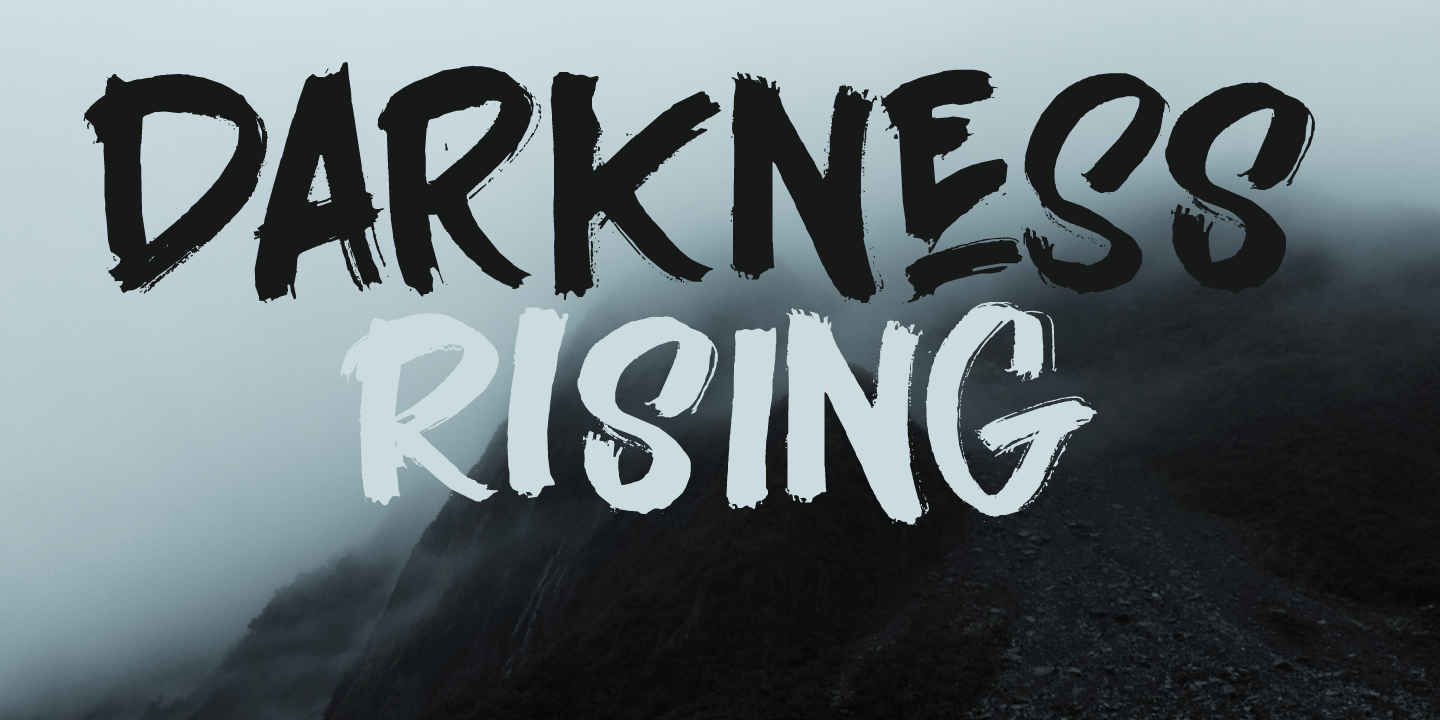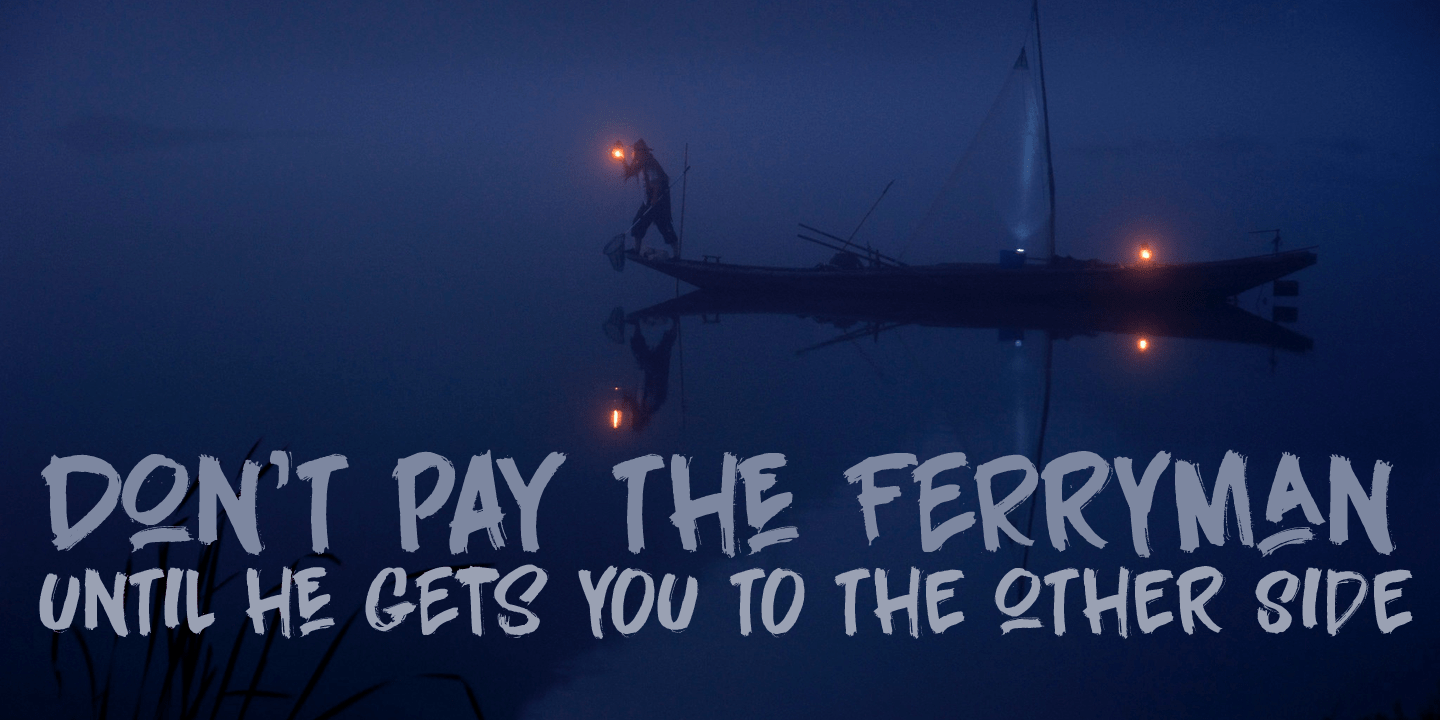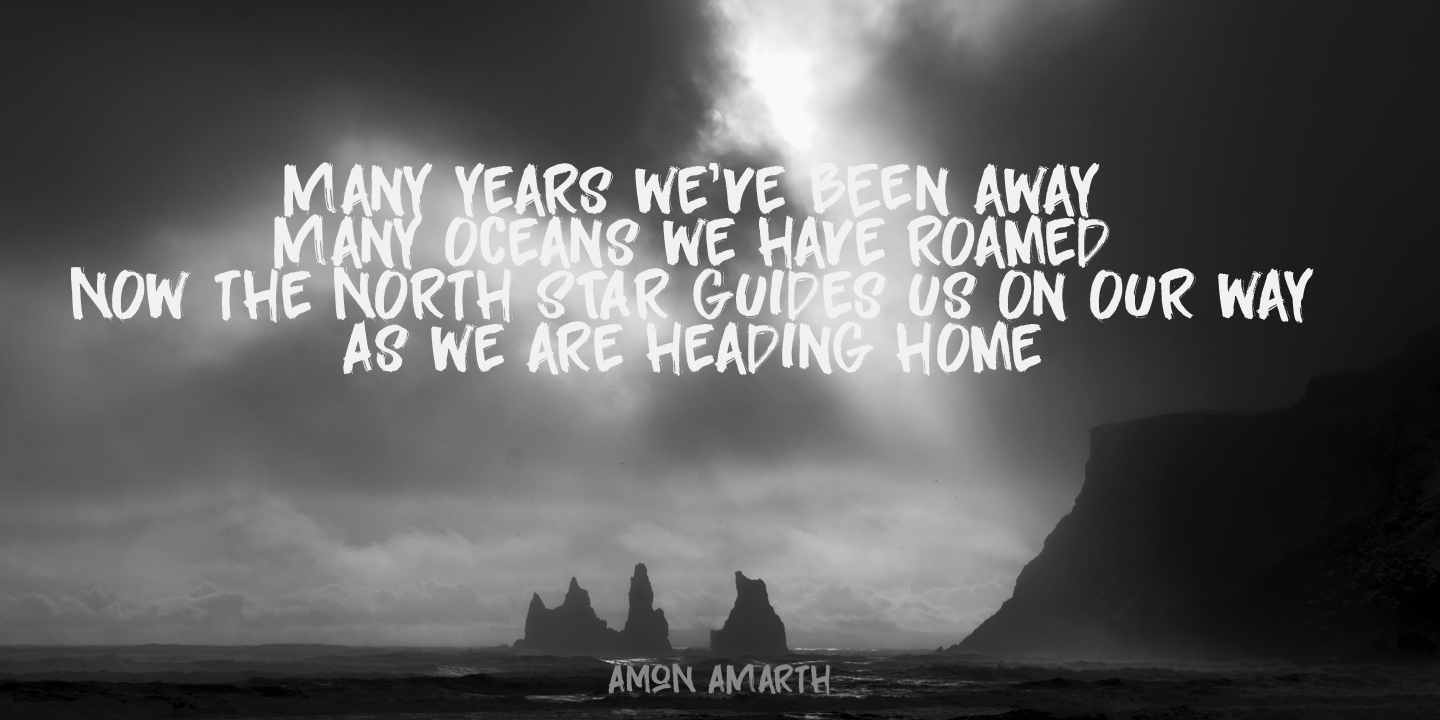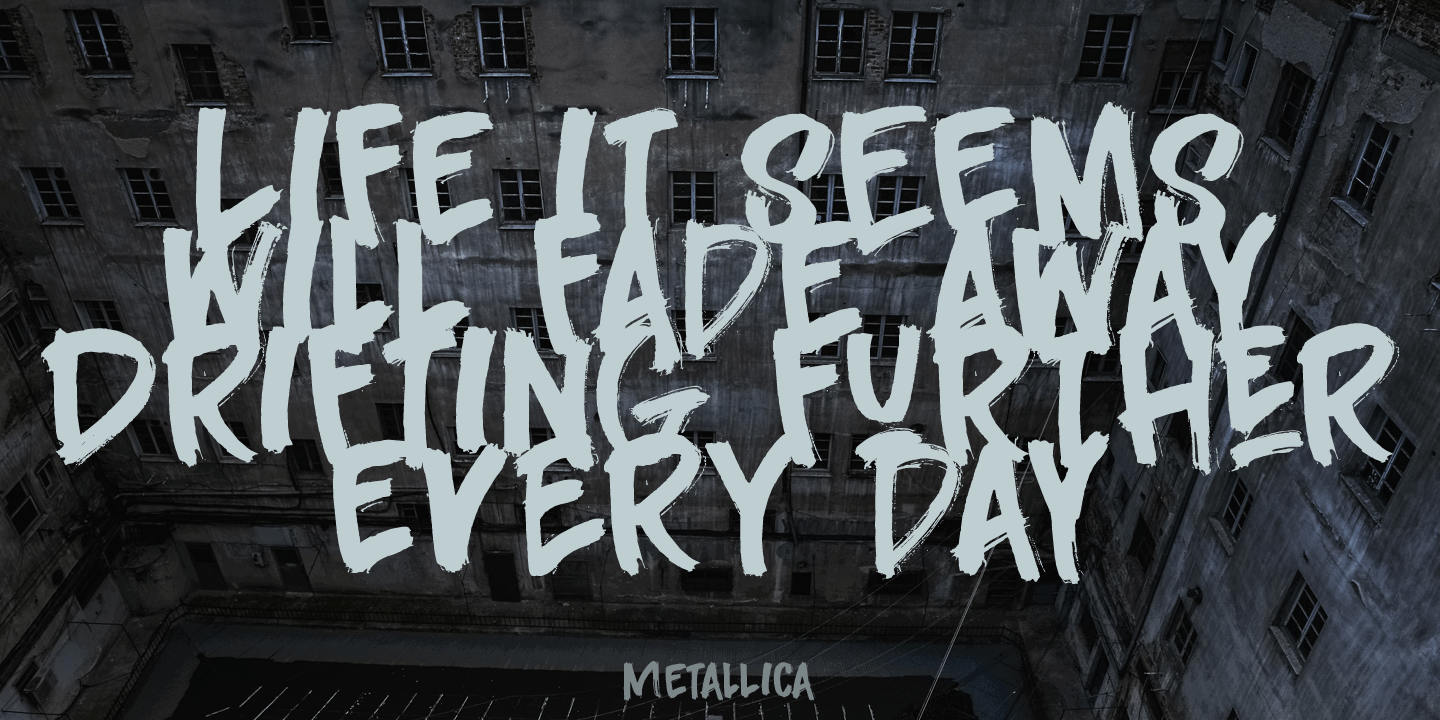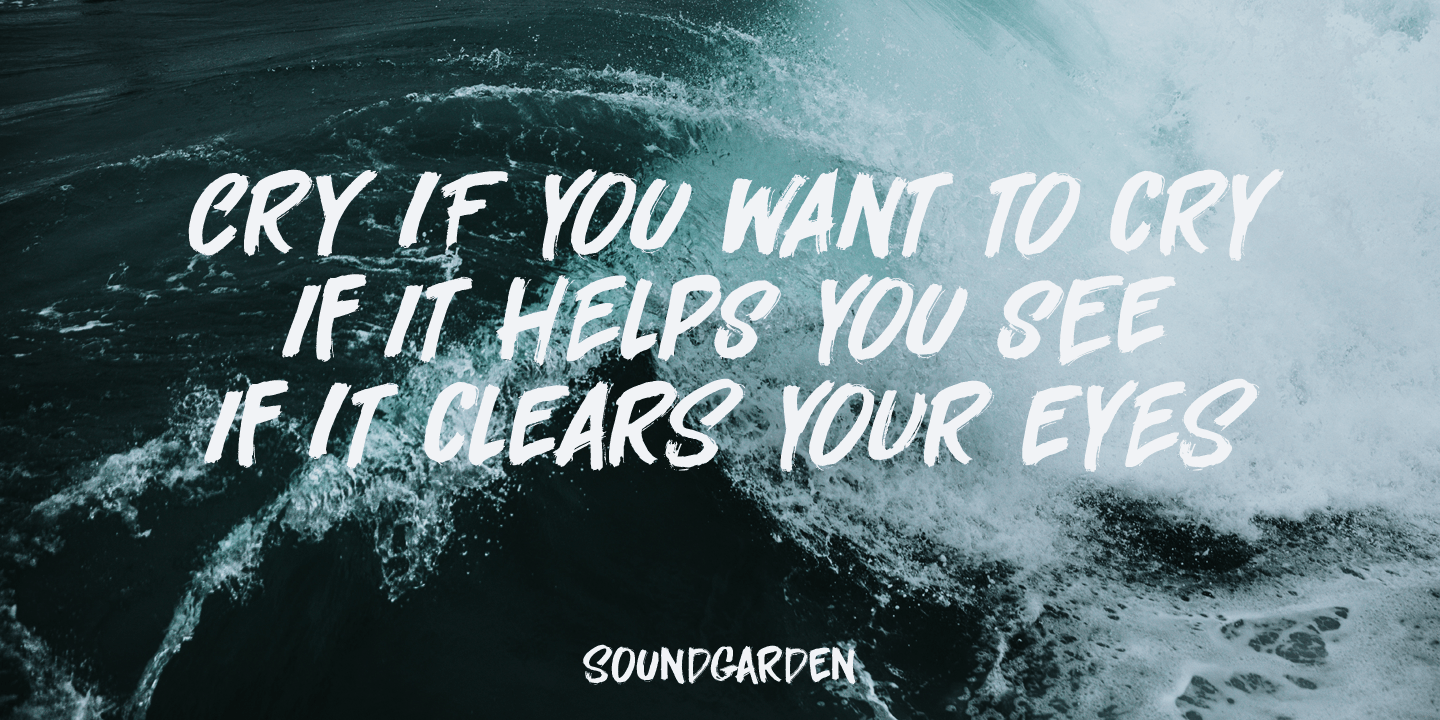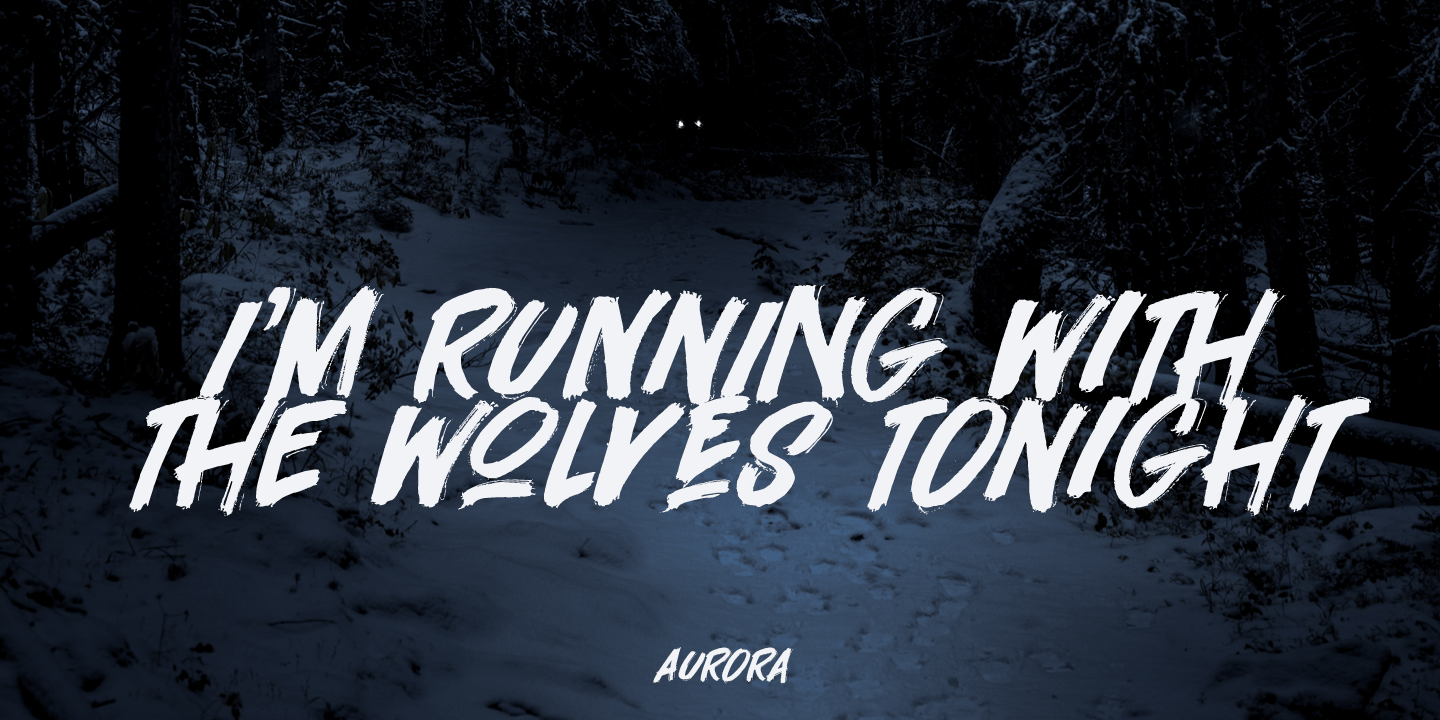
Darkness Rising
I was in a bit of a gloomy mood just before I created this font. I had no inspiration whatsoever (which always affects me in a bad way). I was trying to create a font using broken satay skewers, as using those gives the letters a unique look. I broke about 25 skewers and they all broke 'the wrong way?. Yes, it's pathetic, I know, but that's how it is. I decided to go to the gym and do a little workout, hoping my dark mood would pass. When I came back, I broke one more skewer and lo and behold, it broke exactly the right way! I made this font in one go, using that fantastic skewer and lots of Chinese ink.
Darkness Rising comes with all the diacritics you'll need, plus double letter ligatures and some cool underlined alternates.